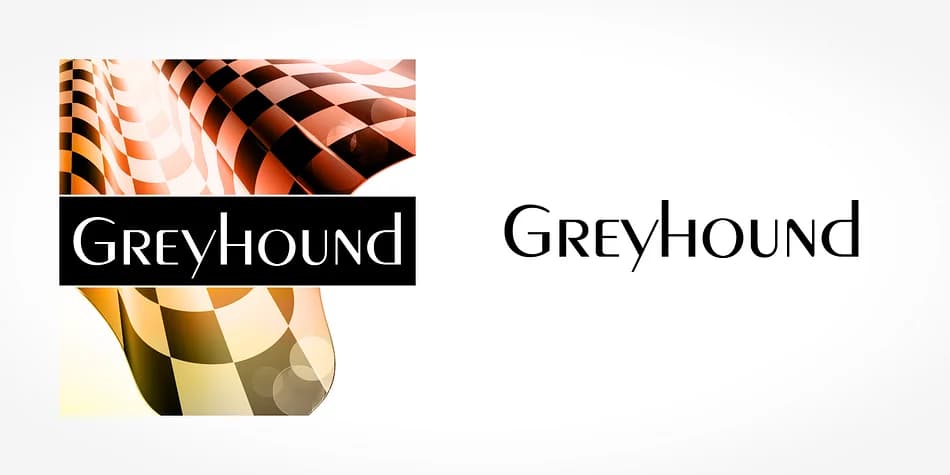
Picture designing a luxury wedding invitation suite where typography does the heavy lifting. That's where Greyhound, a decorative typeface from SoftMaker, steps in. Its distinctive letterforms bring elegance and movement to high-end stationery, making each piece feel intentional and considered rather than mass-produced.
Beyond formal invitations, this typeface shines in boutique cosmetics packaging, where a refined label quietly conveys quality and craft. The broad character set and distinctive letterforms make it surprisingly versatile for a font this visually striking. Apply it to event posters for galleries and design conferences, where the audience expects sophistication in every typographic choice. You can also use it on Etsy product covers and handcrafted packaging labels, where typography signals the time and care you've invested in your work. It works equally well as a bold accent on social media graphics, editorial covers, or album artwork where visual impact matters most.
Greyhound Font is a decorative font that shines as a display or heading face. Pair it with a clean sans-serif or serif font for body text β the contrast creates a clear hierarchy while the two styles stay balanced and easy to read.
Greyhound Font
by SoftMaker